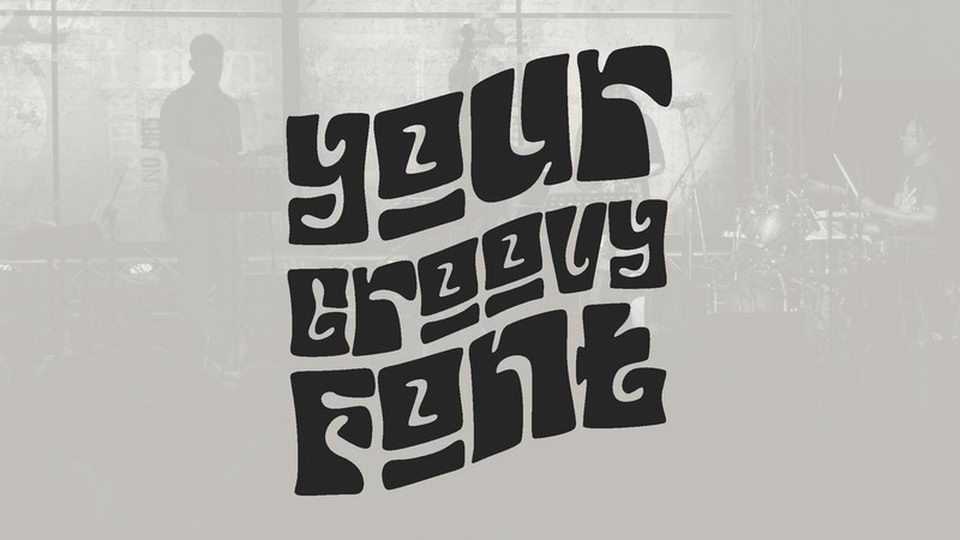
Download Your Groovy font, a hippie style display typeface. The chill vibe, the funky and afro hairstyle with marvy outfit….and don’t forget the music. 70s era is a blast. Your Groovy Font, will emphasize the vibe on everything that you written.